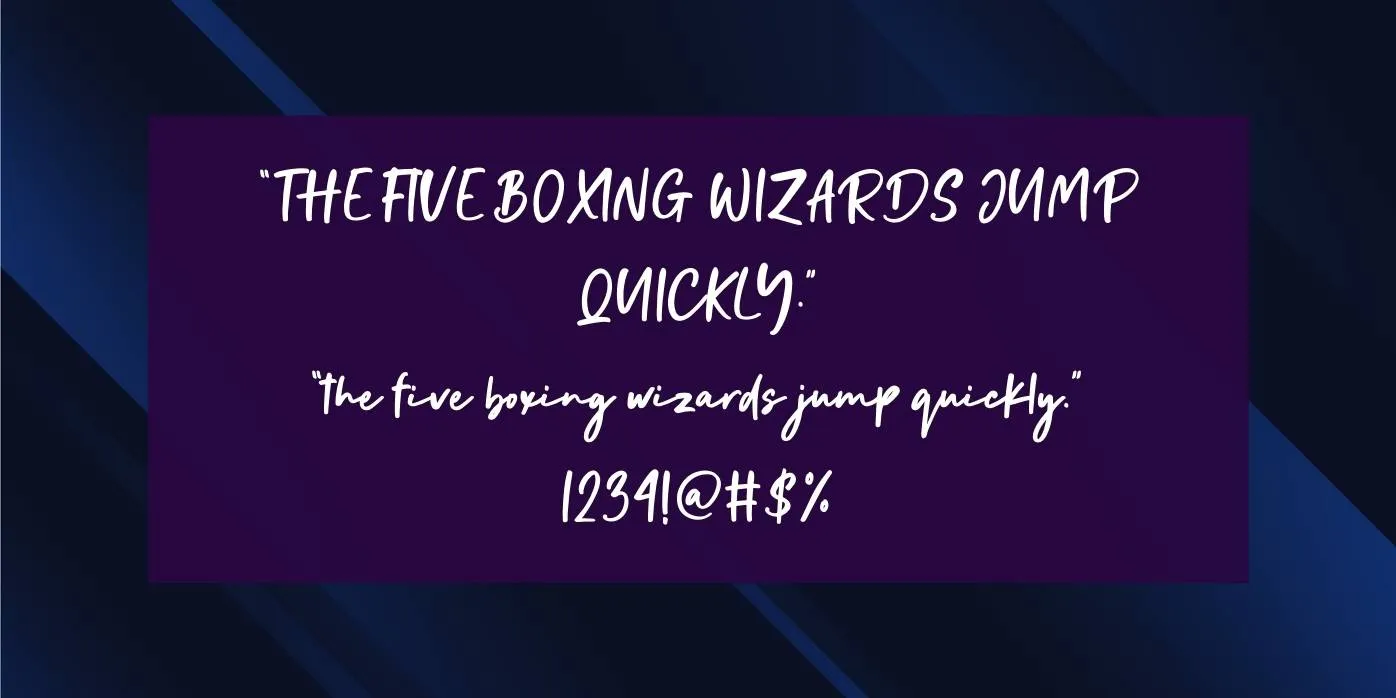
Dearest Font
The dearest font is a handwritten font that was designed by Johnathan Lee in 2014. This unique typeface is very famous and useful. It is currently used on more than 1000 websites. It supports two file formats TTF (Truetype Font) and OTF (Opentype Font).
This font has a very attractive and stylish look. You can be used in body text because of its good readability. It contains 194 glyphs and has many elements like small letters, capital letters, numbers, punctuations, and special characters. Its look is very nice and elegant.  This typeface is available in four weights Light, Regular, Medium, and bold.
Latin, Cyrillic, and Greek Characters are also available in this font. It also provides the facility of an online generator tool which makes it more efficient and attractive. Usage It can be used for many projects as it is a very nice and simple font. You can be used for making online ads.
It is also very useful for making printing items like flyers and posters. You can also pair this font with certificate font to make your project looks more stylish and good. In making website headers it is considered as the best font. This typeface has a very good readability element which is perfect for copy-paste function.
Because it provides an online generator tool function and you have less time for your project this font can be used without downloading. By using the dankos font in conjunction with this typeface, you can achieve remarkable displays. You may also utilize this font for canva, adobe, and CSS purpose. It can be used in social media posts, product designing, photography, wedding invitations, or on any kind of special event.
Yes, it is proportionally space. It means that the glyphs have proportions of the human body which makes your project easy to read. Who designed the Dearest Font? The Dearest font is a very decorative handwritten font.
It was designed by Johnathan Lee in 2014. This font is very famous and useful. It is currently used on more than 1000 websites. Is Dearest Font a Windows Font?